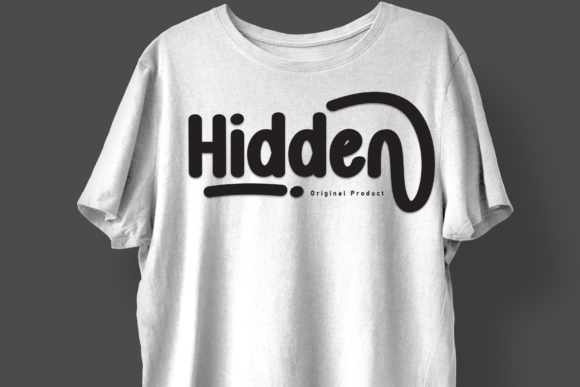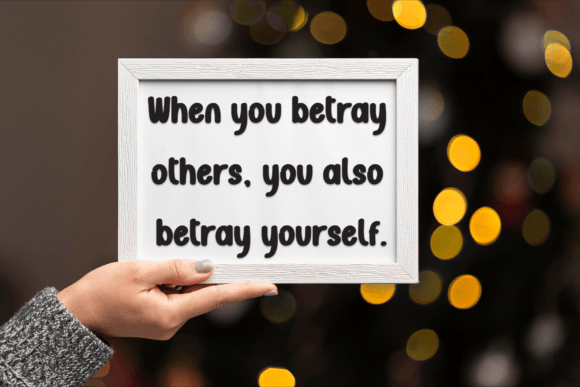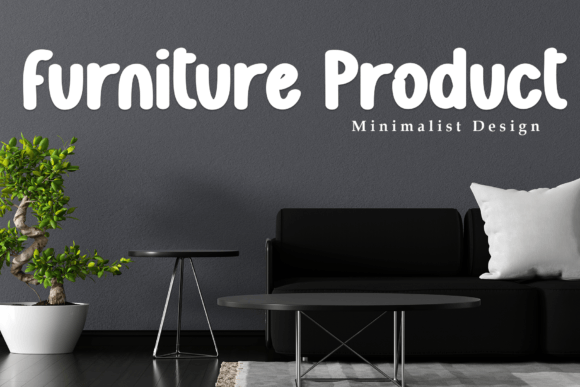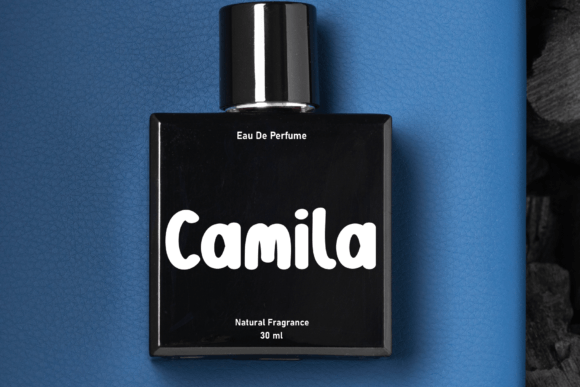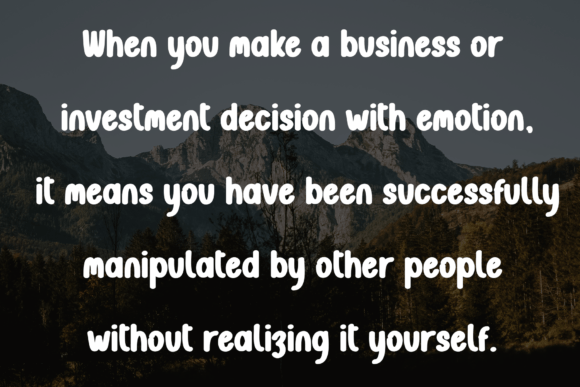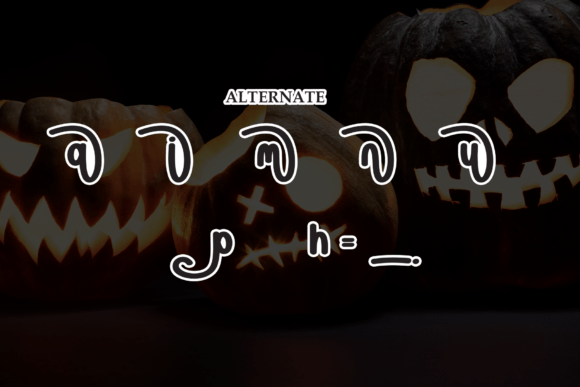
Introducing Ghost Pumpkin Font: A Timeless Handwritten Delight
Are you on the hunt for a font that adds a touch of elegance and whimsy to your designs? Look no further than the Ghost Pumpkin Font, a lovely and timeless handwritten font that’s perfect for creating eye-catching logos, branding, and quotes. With its unique and beautiful touch, this font is sure to make your design come alive!
The Charm of Ghost Pumpkin Font
Ghost Pumpkin Font is a carefully crafted handwritten font that exudes a sense of warmth and sophistication. Its timeless appeal makes it an excellent choice for designers and crafters who want to add a personal touch to their work. Whether you’re creating a logo, branding materials, or quotes, this font is sure to impress.
What Makes Ghost Pumpkin Font Special?
So, what sets Ghost Pumpkin Font apart from other fonts? Here are a few reasons why designers and crafters love this font:
- Unique and Beautiful Touch: Every letter in Ghost Pumpkin Font has a unique and beautiful touch that adds a personal touch to your designs.
- Handwritten with Love: This font is carefully crafted with love and attention to detail, making it perfect for projects that require a personal touch.
- Elegant and Whimsical: Ghost Pumpkin Font strikes the perfect balance between elegance and whimsy, making it suitable for a wide range of design projects.
- Eye-Catching: With its distinctive charm, Ghost Pumpkin Font is sure to grab attention and leave a lasting impression.
Ghost Pumpkin Font is an excellent choice for designers and crafters who want to add a touch of personality to their work. Here are some ways you can use this font:
- Logos and Branding: Create eye-catching logos and branding materials that reflect your brand’s personality.
- Quotes and Posters: Add a touch of elegance and whimsy to your quotes and posters.
- Stationery and Invitations: Create beautiful stationery and invitations that make a lasting impression.
- Digital and Print Projects: Use Ghost Pumpkin Font in a variety of digital and print projects, from social media graphics to brochures and flyers.
Tips for Using Ghost Pumpkin Font
Here are some tips for getting the most out of Ghost Pumpkin Font:
- Experiment with Colors: Try pairing Ghost Pumpkin Font with different colors to create a unique and eye-catching effect.
- Mix and Match: Combine Ghost Pumpkin Font with other fonts to create a distinctive and visually appealing design.
- Pay Attention to Spacing: Make sure to adjust the spacing between letters to create a clean and elegant look.
In conclusion, Ghost Pumpkin Font is a timeless handwritten font that’s perfect for designers and crafters who want to add a touch of elegance and whimsy to their work. With its unique and beautiful touch, this font is sure to make your design come alive! Whether you’re creating logos, branding materials, or quotes, Ghost Pumpkin Font is an excellent choice.